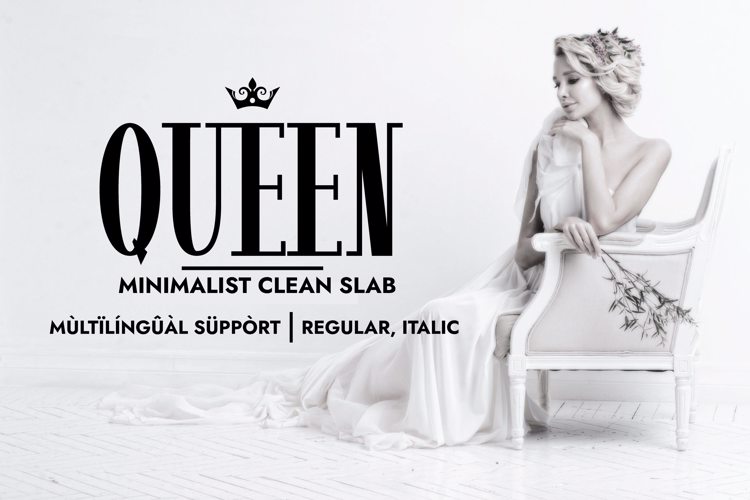
QUEEN Font
ITALIC Italic Style
๐จ Font Name: [QUEEN ] by Minimalist Art Studio
๐จ Font Description: Queen is a minimalist slab serif with regal elegance and multilingual supportโperfect for luxury branding, packaging, and editorial design.
โ Complete Latin set + multilingual diacritics
โ Alternates, stylistic sets & ligatures
โ Numbers, small caps, and extended punctuation
โ Bonus italics and family styles